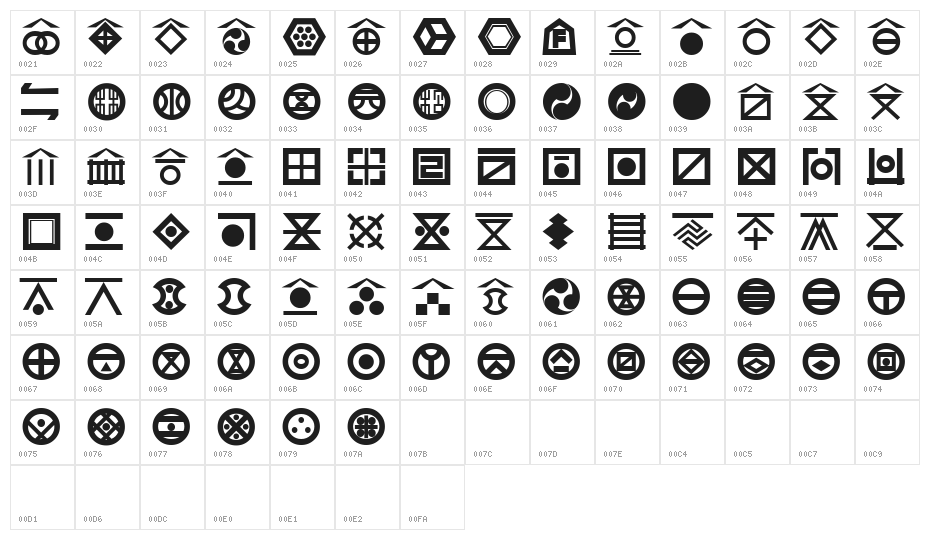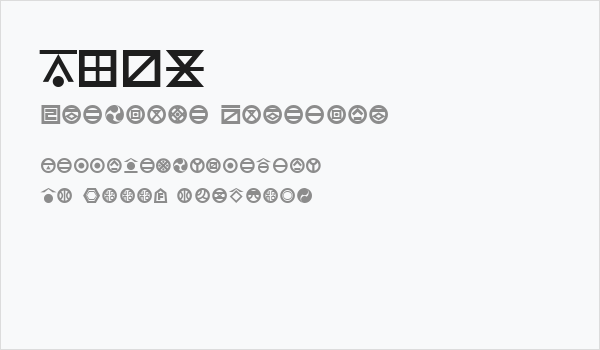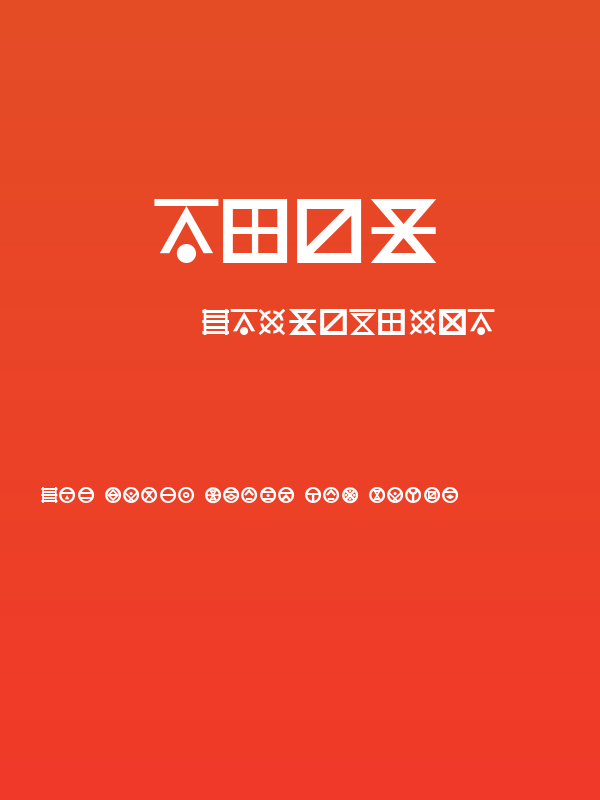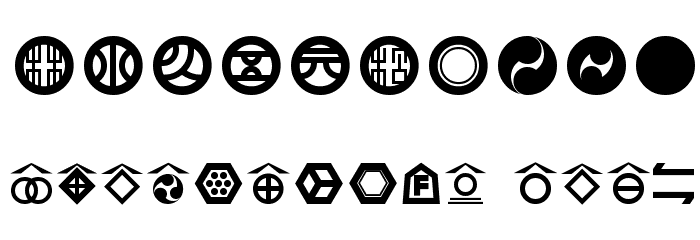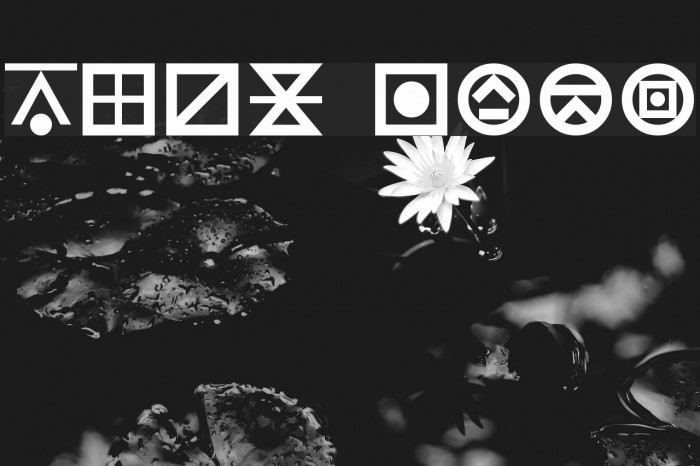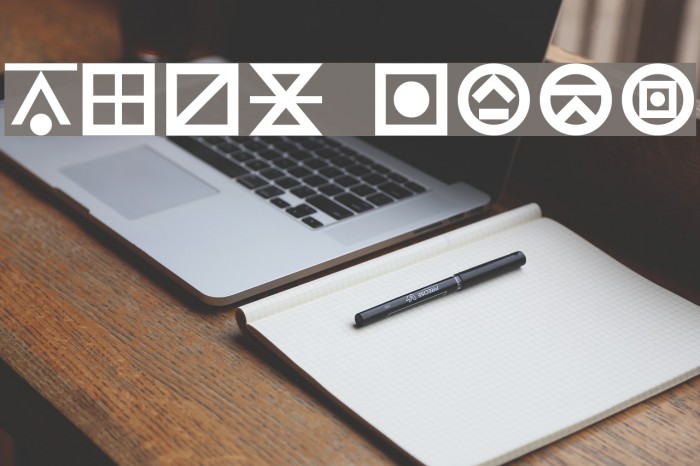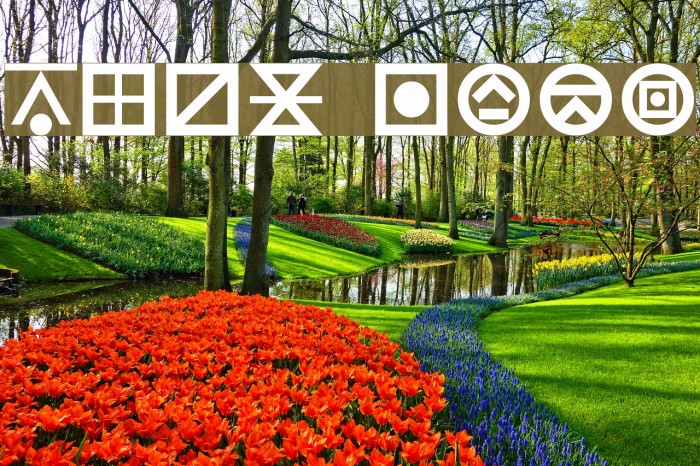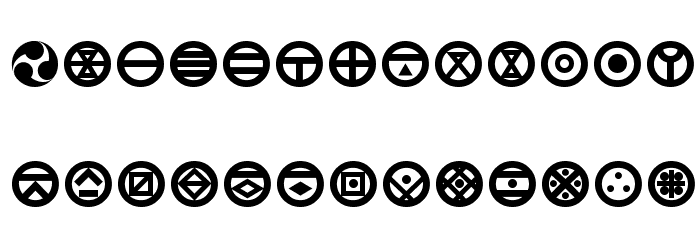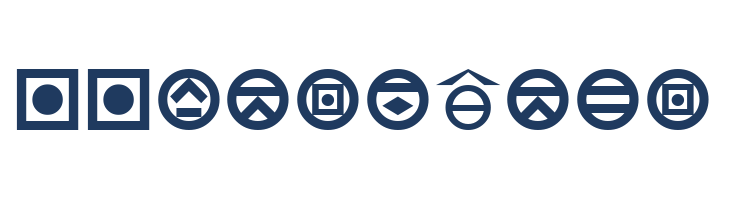
YAGO Font
YAGO Description
A highly decorative and abstract symbol font featuring geometric shapes, enclosed forms, and intricate patterns instead of traditional alphanumeric characters. The glyphs are bold, with strong black fills and clear outlines, evoking a futuristic or coded aesthetic.
| Overall Style | Decorative, Futuristic, Abstract |
| Use Case | Logos, Decorative elements, Game design, Themed posters |
| Proposed Projects | Logos, branding, secret codes, puzzles, game UI, sci-fi themes, decorative headings. |